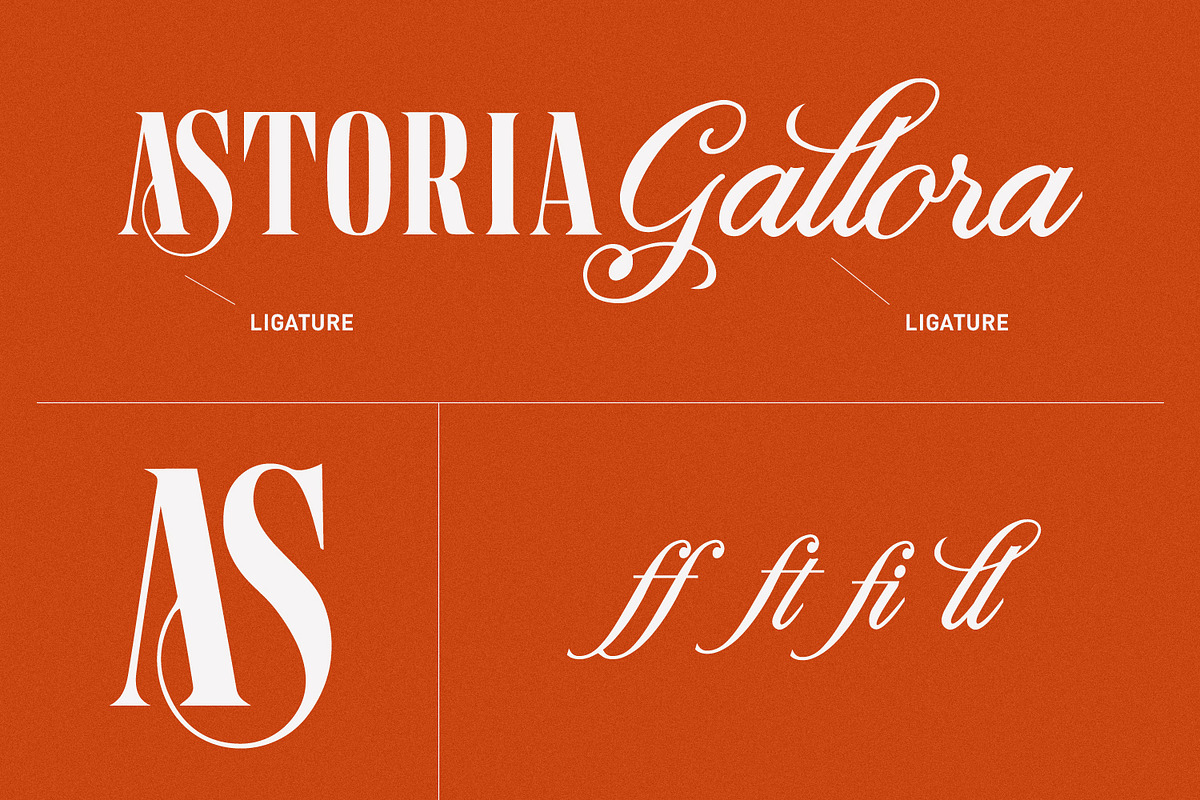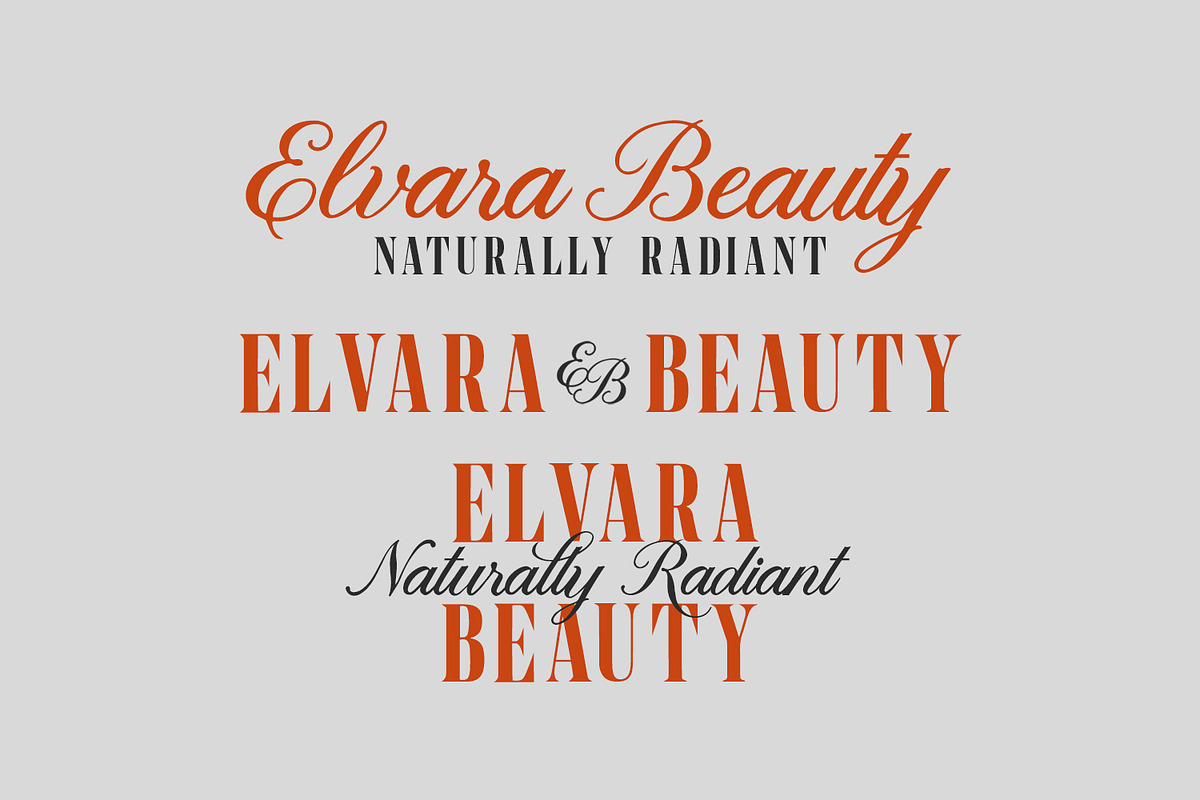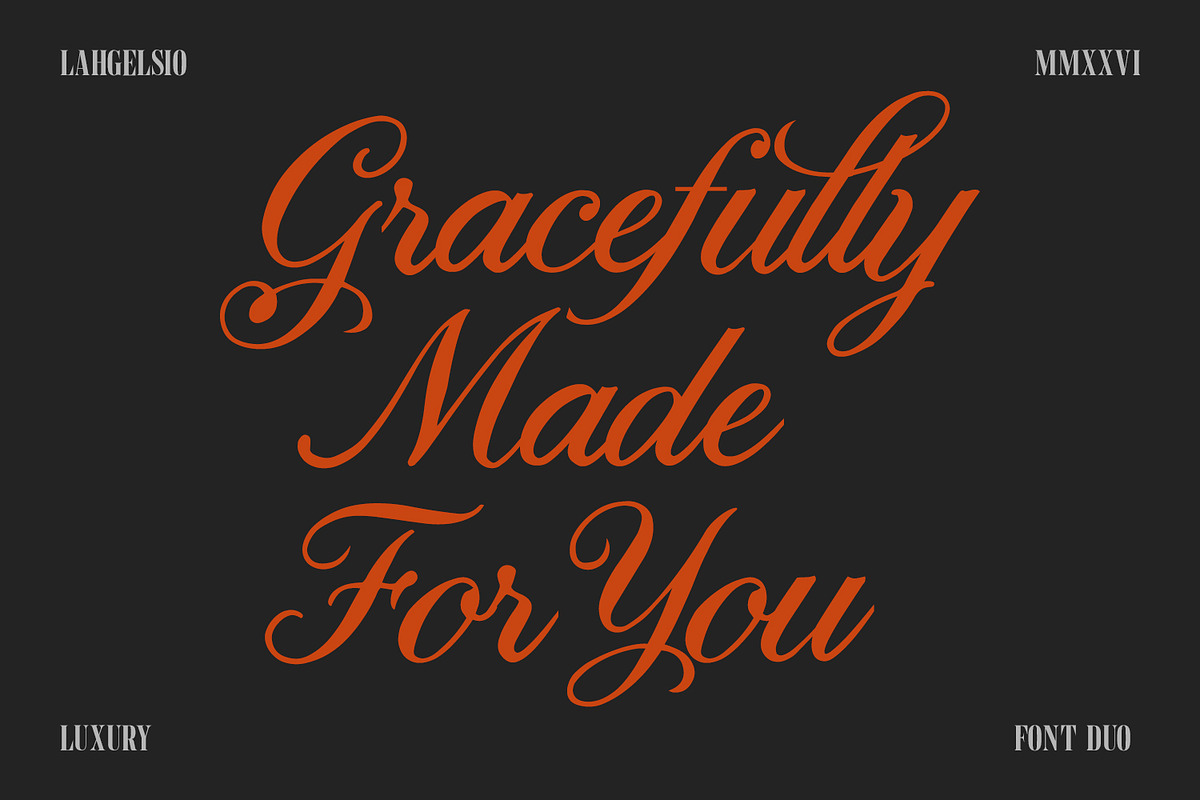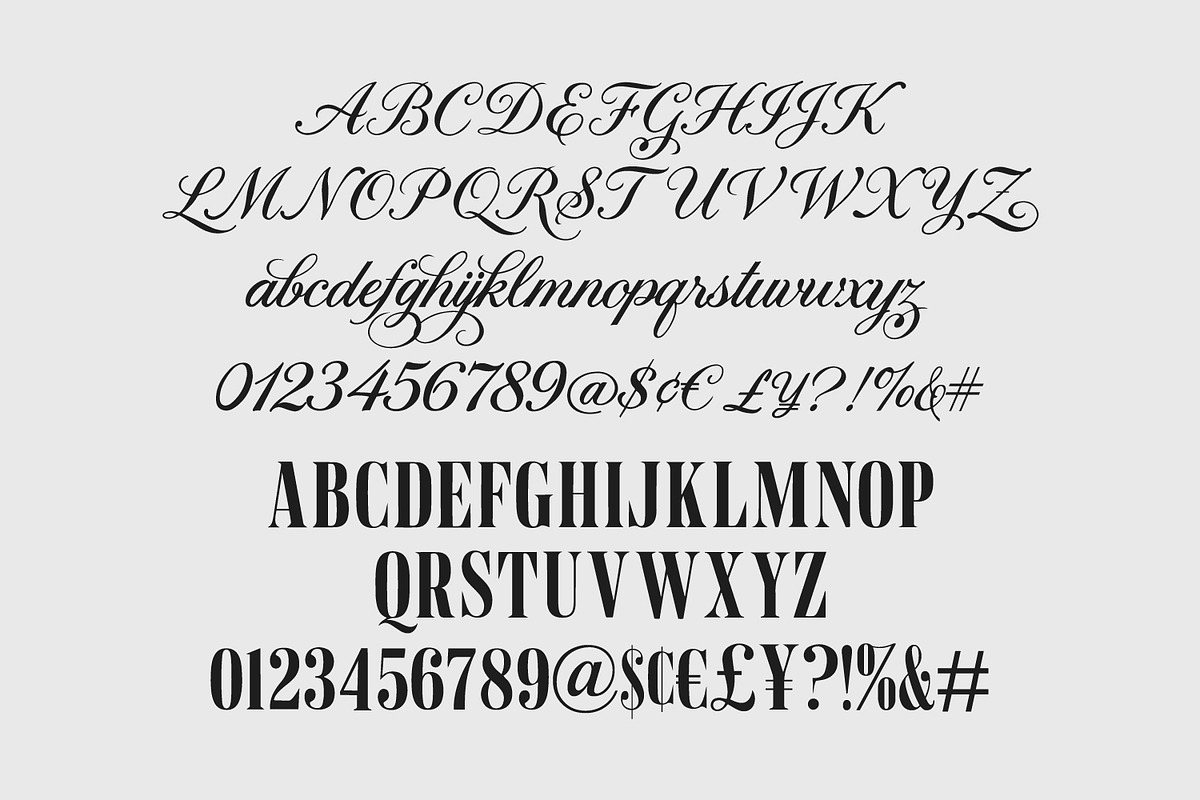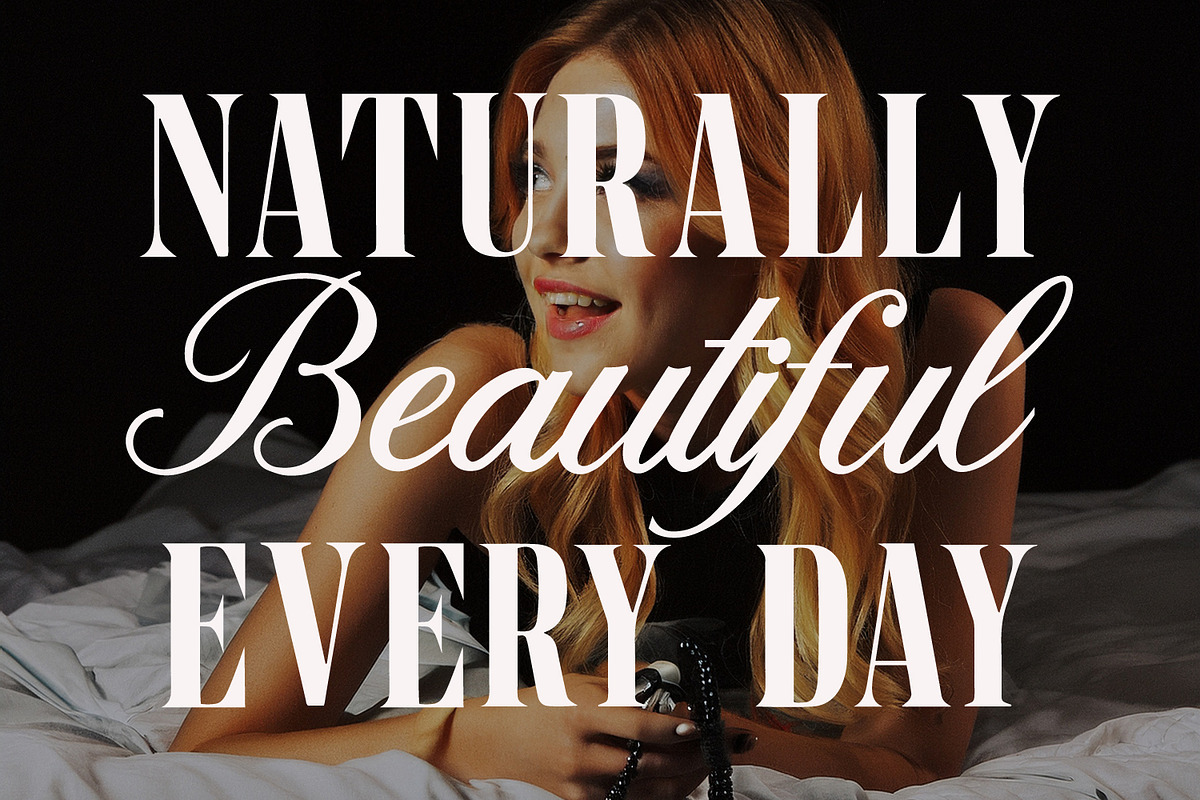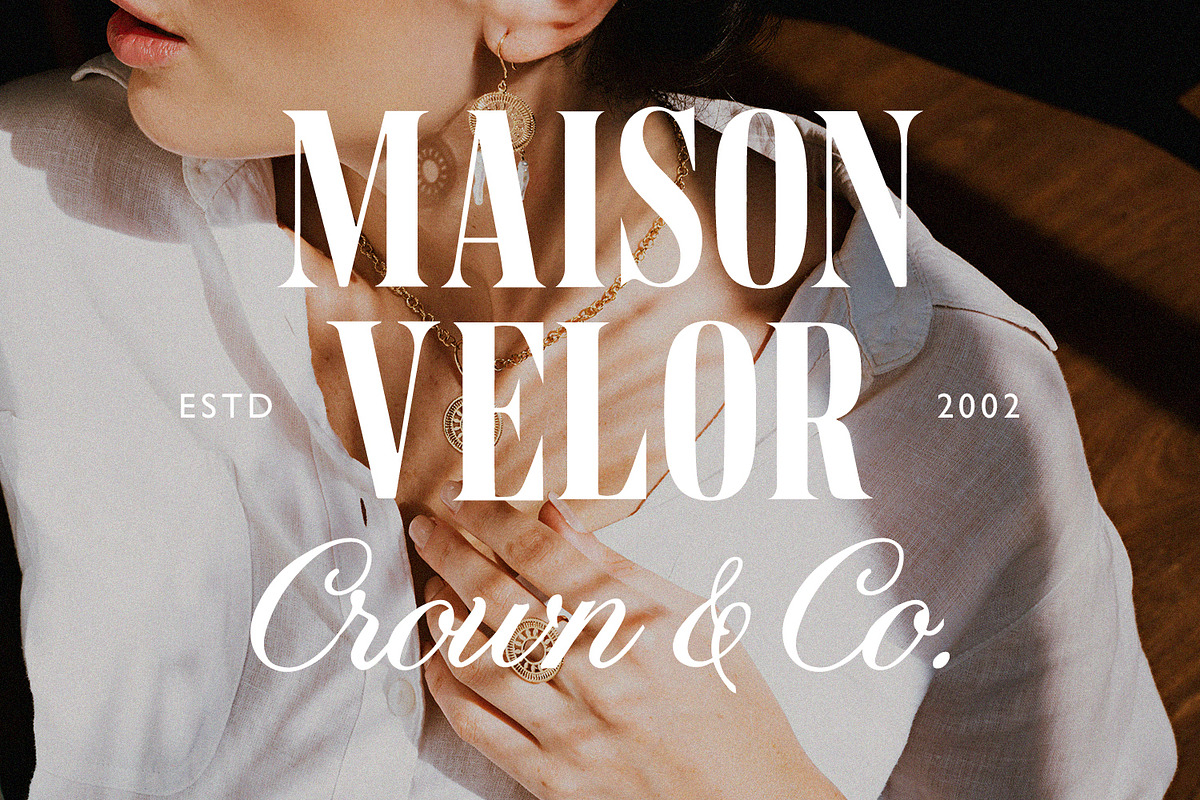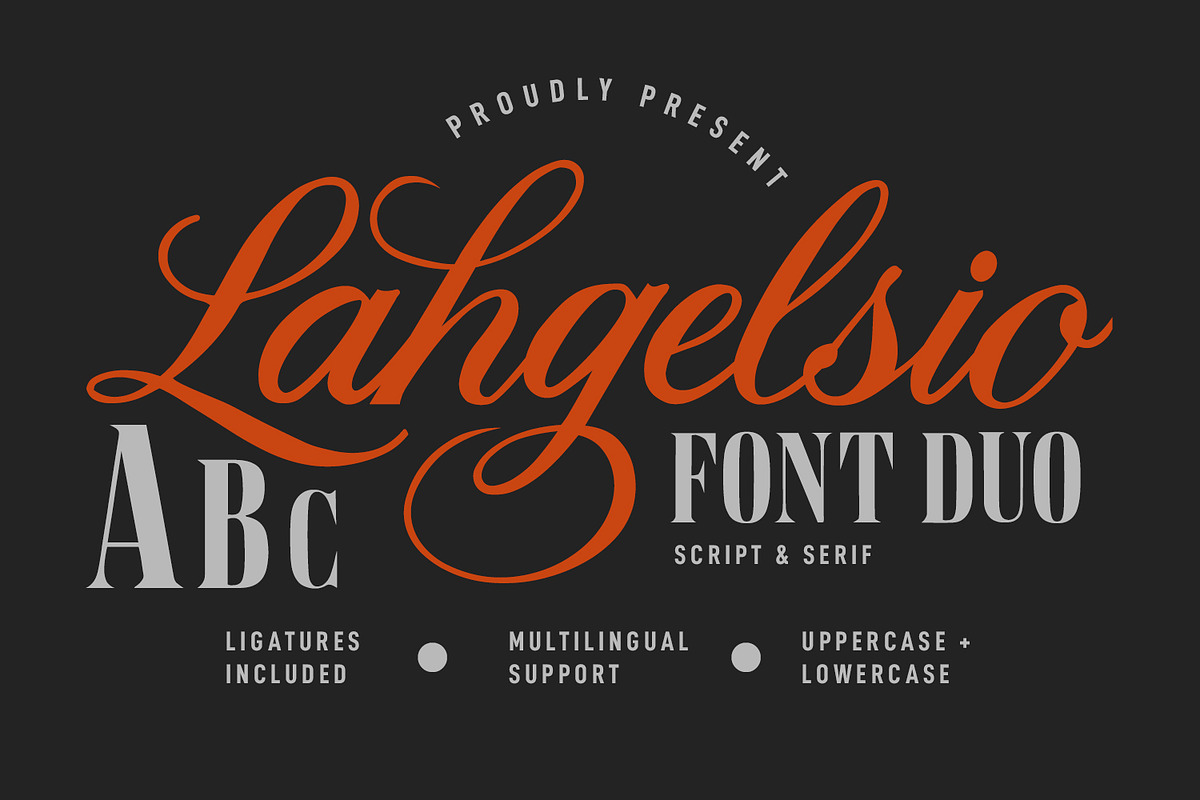
Lahgelsio Elegant Serif Script Duo
Lahgelsio is a typography pairing that combines a high-contrast serif typeface with a graceful, flowing script style. Designed with clean ligatures and refined swoops, this font duo provides visual harmony and contrast for sophisticated visual layouts. The serif weight offers tall, narrow letterforms with sharp contrast, while the script variant brings fluidity through organic curves and decorative swashes.
This font duo is ideal for high-end branding, luxury cosmetics packaging, wedding stationery, editorial design, and identity systems. Including uppercase and lowercase sets, numerals, symbols, and multilingual support, Lahgelsio delivers maximum versatility for visual hierarchy in display titles, logos, quotes, and branding materials.
- Ligature for a natural handwriting flow